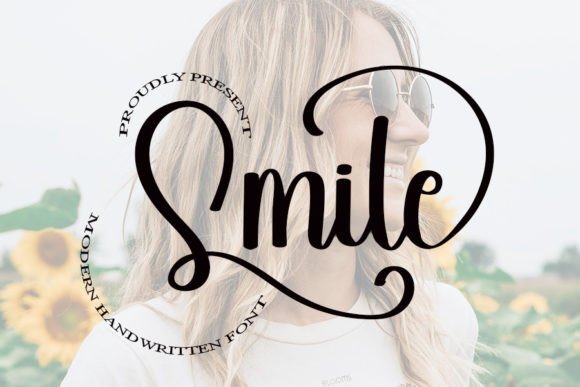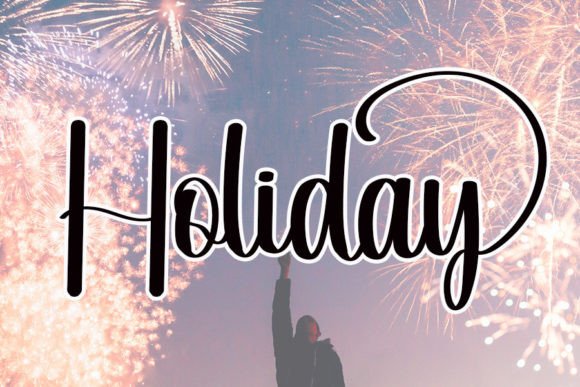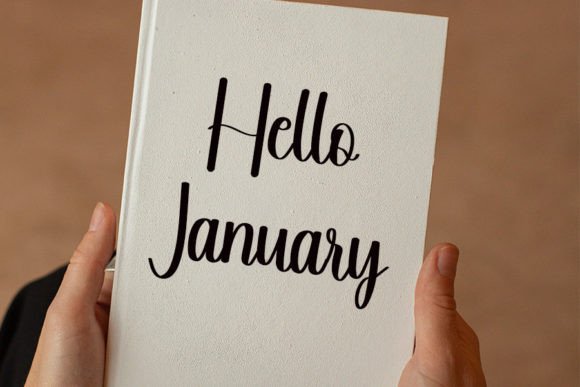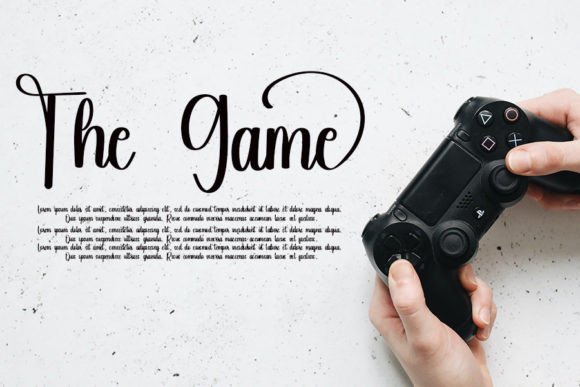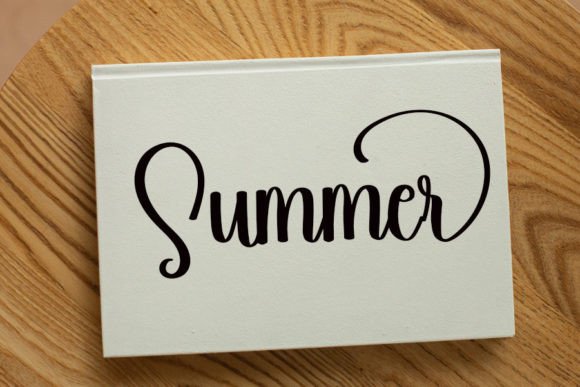
About Smile Font
Smile is a neat and beautiful handwritten font that brings an elegant and timeless look to your creative projects. Designed with smooth lines and graceful curves, this font has a warm, welcoming style that instantly captures attention. Whether you need a font for personal use or professional branding, Smile delivers a unique balance of simplicity and sophistication.
A Handwritten Style with Refined Character
Smile stands out with its clean and polished letterforms. Each character feels natural and harmonious, creating an inviting rhythm across any text. From wedding invitations to business cards, this font adds a genuine handwritten feel without sacrificing clarity.
Its subtle elegance makes it perfect for projects that require a personal yet professional touch. Smile can easily become the signature element in your designs.
Ideal for Many Creative Applications
This versatile font works beautifully in a wide variety of contexts. Here are some popular uses:
Wedding Invitations: Design charming and stylish stationery that feels heartfelt.
Greeting Cards: Make special occasions more memorable with a handwritten look.
Branding and Logos: Build a distinctive identity that feels approachable.
Social Media Posts: Create eye-catching quotes and captions with an authentic feel.
Packaging and Labels: Add a warm, handcrafted touch to your products.
Digital Designs: Perfect for blog headers, banners, and online shops.
Smile’s clear, graceful style adapts effortlessly to any setting.
Tips for Stunning Results
To get the most out of Smile, try these design tips:
Pair with Sans-Serif Fonts: Combine with a clean sans-serif typeface for a modern look.
Use Neutral Colors: Soft palettes like beige, white, or pastels highlight Smile’s elegance.
Adjust Spacing: Slightly increase letter spacing to improve readability in larger texts.
Mix Sizes: Create contrast by using Smile for headers and simpler fonts for body text.
Emphasize Key Words: Make important phrases stand out with color or bold styling.
Why Smile is Loved by Creatives
Smile is more than just a font—it’s an expression of personality and style. Designers appreciate its balance of neat structure and graceful flow.
When you use Smile, your work instantly feels elevated and thoughtful. From heartfelt messages to polished branding, this font helps you connect with your audience in an authentic way.
Elevate Your Projects with Smile
If you’re searching for a handwritten font that feels refined, versatile, and timeless, Smile is the perfect choice. Let it inspire your next project and watch as it transforms simple ideas into unforgettable designs.